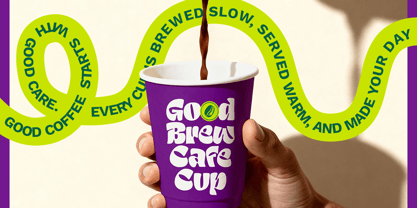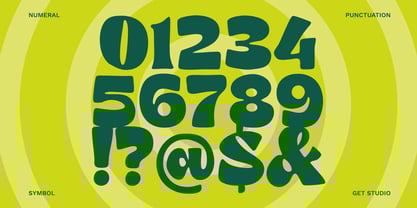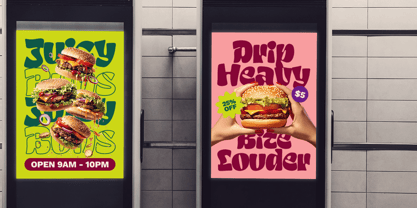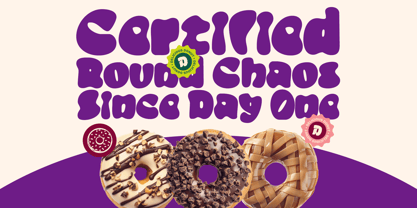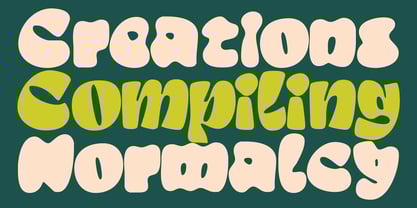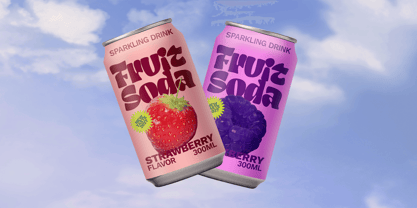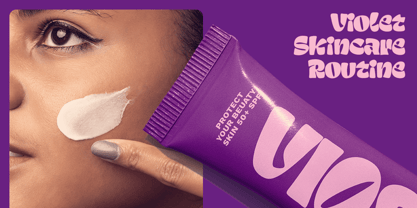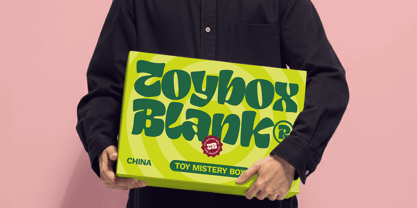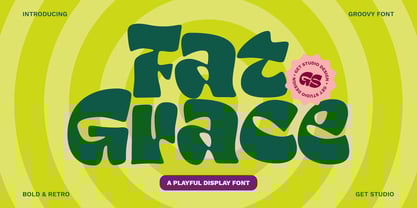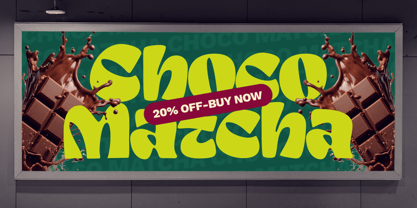
Fat Grace
by Get Studio
The Fat Grace Font Family was designed by Hermansyah and published by Get Studio. Fat Grace contains 2 styles and family package options. More about this family
Fat Grace is a playful display font bursting with personality and bold character. Its chunky, bubbly letterforms bring an instant sense of fun, warmth, and creative energy to any design. Inspired by groovy retro aesthetics and hand-drawn organic movement, this typeface feels lively and expressive—perfect for projects that need to stand out with confidence and joy. Whether you're crafting posters, merchandise, packaging, logos, or bold headline statements, Fat Grace delivers a friendly, memorable visual voice. Its soft curves, balanced weight, and quirky rhythm create a visual charm that draws attention without overwhelming the design. Fat Grace is not just a font—it’s a mood: bright, happy, and unforgettable.
Designers: Hermansyah
Current Foundry: Get Studio